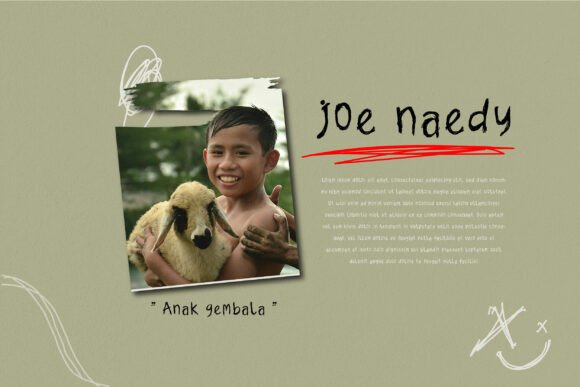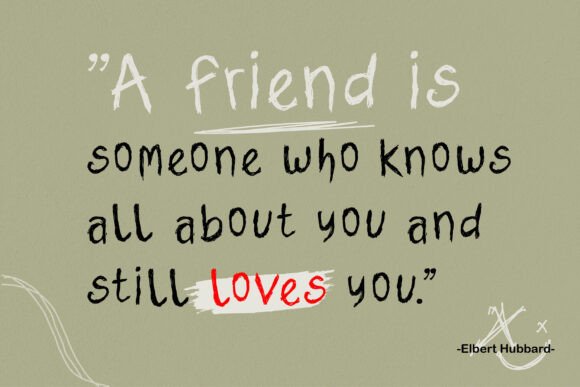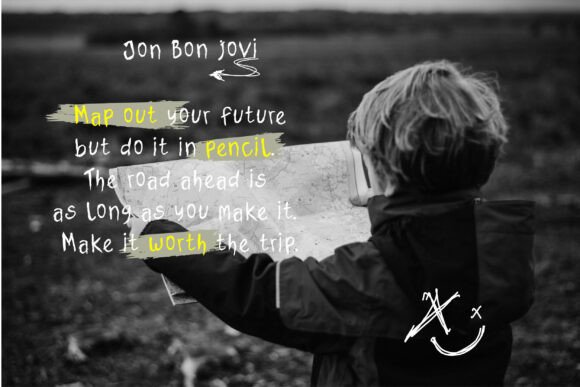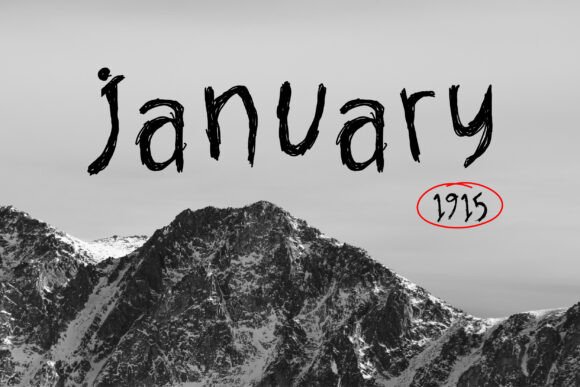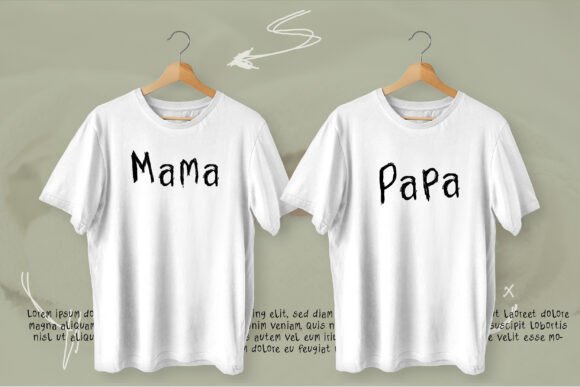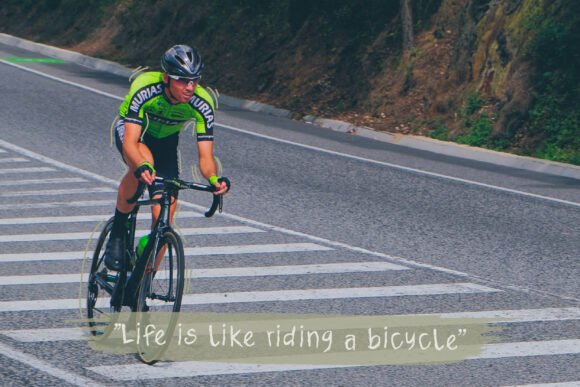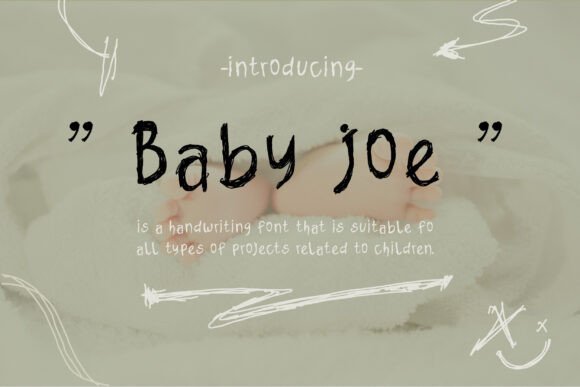
Unleashing the Magic of Handwritten Charm
Have you ever sat down with a blank sheet of paper and a pen, waiting for the perfect idea to strike? The scribble of the pen, the dance of the lines, and the birth of something new – that’s the magic of handwritten creativity. It’s in these moments that we find our true selves, our authentic voice, and our unique style. And that’s exactly what the Baby Joe Font brings to the table – a delightful and light-hearted handwritten font that captures the essence of our inner child.
Designed to breathe life into your imaginative endeavors, Baby Joe Font is more than just a font – it’s a statement. With its authentic scribble handwriting style, it adds a raw and distinctive flair to your projects, making it a valuable asset for designers looking to create something truly special. Whether you’re crafting a children’s book, customizing stationery, or adding charm to handmade cards, Baby Joe Font is the perfect companion to bring your ideas to life.
Baby Joe Font Key Features
- Unique Characteristics: This font has a unique, playful, and modern design with rounded edges and a friendly feel, making it perfect for children’s books, magazines, and other kid-friendly materials.
Baby Joe Font Review
I recently had the chance to work with the Baby Joe Font, and I must say it’s a unique and interesting choice. Here’s my honest take on what works well and what doesn’t.
- The font has a playful and modern feel to it, making it perfect for projects that need a fun and youthful vibe.
- The letterforms are well-designed and have a nice balance of curves and straight lines, making it easy to read.
- The font comes in a range of weights and styles, giving you plenty of options to choose from.
- The font may not be suitable for projects that require a professional or formal tone, as it can come across as too playful.
- The font doesn’t have a lot of flexibility when it comes to customization, so you’re limited to the styles and weights that come with it.
Overall, I think the Baby Joe Font is a great choice for projects that need a fun and modern feel. While it may not be suitable for all projects, it’s definitely worth considering if you’re looking for a playful font that will add some personality to your design.
Tips for Getting the Most Out of Baby Joe Font
Use the Baby Joe Font for playful, casual designs such as children’s books, party invitations, and social media graphics.
The Baby Joe Font is ideal for:
- Children’s book titles and headings
- Party invitations and event graphics
- Social media graphics and ads
- Casual blog and article headings
Alternatives to Baby Joe Font
Playfair Display is an elegant and luxurious serif font, perfect for use in headings, titles, and other display typography. It features intricate details and a classic feel, making it suitable for high-end branding, luxury products, and premium services.
Compared to Baby Joe Font, Playfair Display has a more sophisticated and refined look, while Baby Joe Font is more playful and casual. Use Playfair Display for high-end designs that require a touch of elegance and sophistication.
Great Vibes is a beautiful and elegant script font, ideal for use in headings, titles, and other display typography. It features a flowing and connected feel, making it perfect for creative, artistic, and expressive designs.
Compared to Baby Joe Font, Great Vibes has a more fluid and dynamic look, while Baby Joe Font is more rigid and geometric. Use Great Vibes for designs that require a touch of whimsy and personality.
Alex Brush is a elegant and refined script font, perfect for use in headings, titles, and other display typography. It features a flowing and connected feel, making it suitable for creative, artistic, and expressive designs.
Compared to Baby Joe Font, Alex Brush has a more delicate and feminine look, while Baby Joe Font is more bold and masculine. Use Alex Brush for designs that require a touch of sophistication and elegance.